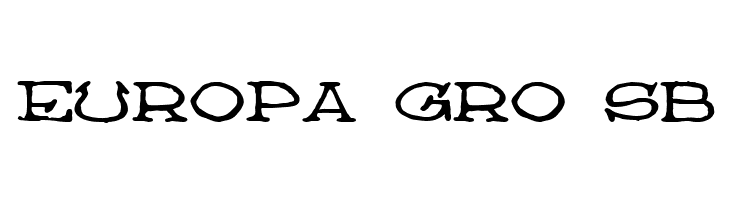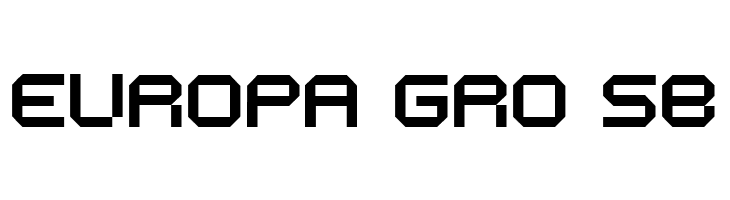
A whimsical, decorative font with arrow-like serifs and playful character design.
Bold, geometric font with uniform width and angular edges.
A whimsical, hand-drawn font with a magical, ancient script vibe.
A playful, hand-drawn font with thin, elongated characters and a whimsical style.
A playful, modern italic font with thin, elongated strokes and a dynamic appearance.
A geometric, futuristic font with bold, angular shapes and clean lines.
A modern, geometric font with rounded edges and consistent stroke widths.